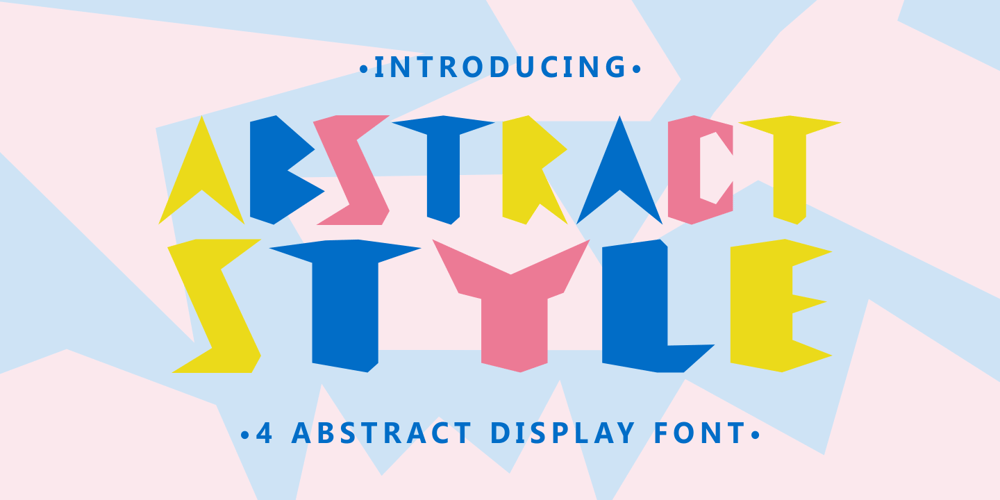
Abstract Style Font Family was designed by Putra Novembria Candra Kusuma and published by Putracetol. Abstract Style contains 4 styles and family package options. Abstract Style is a abstract display font. This font has abstract and irregular shapes, sharp corners and messy shapes that characterize it. Abstract Style would be perfect for Logo, title, logotype, cover, headline, apparel, comic, cover books, cards, posters, or anything that requires a abstract creativity!